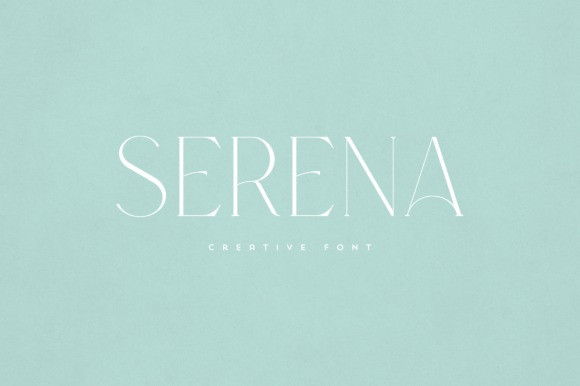
Serena Font
Serena Font is an elegant and versatile serif font that will make your typography truly unique! It will enchant every logo, branding, headline, or plain text!